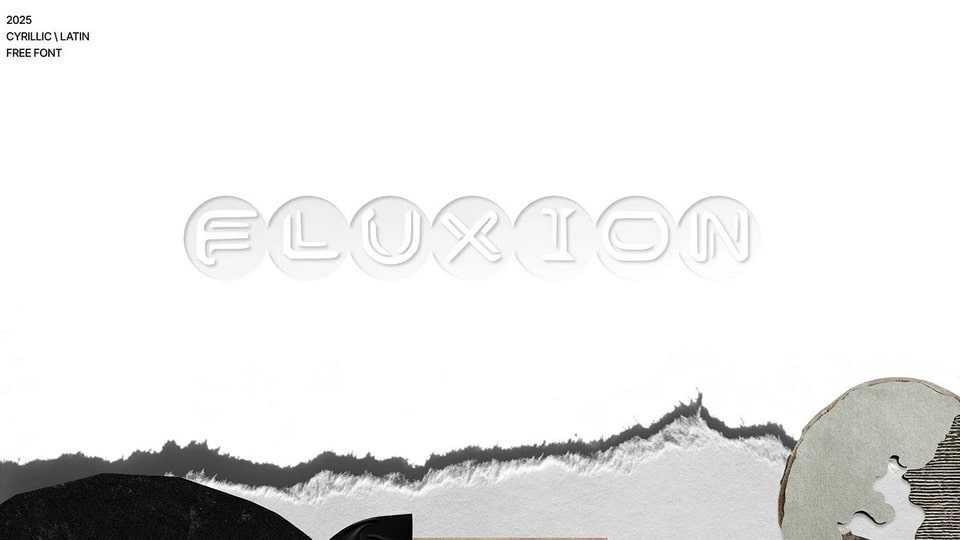
Download Fluxion font, a decorative display typeface that serves as a visual metaphor for imperfection and movement. Inspired by the idea that the world is never perfectly round.
Designer: Anastasia Kavaeva